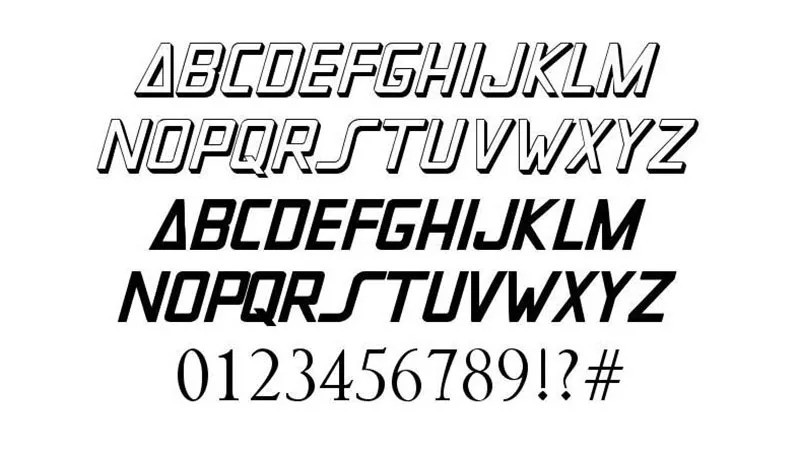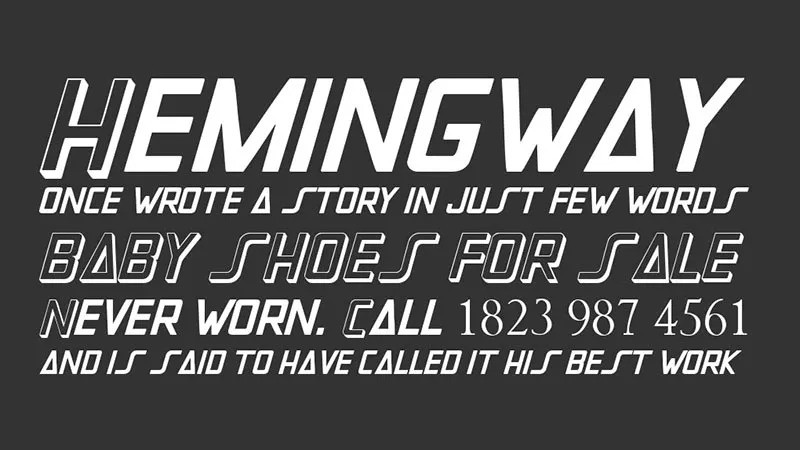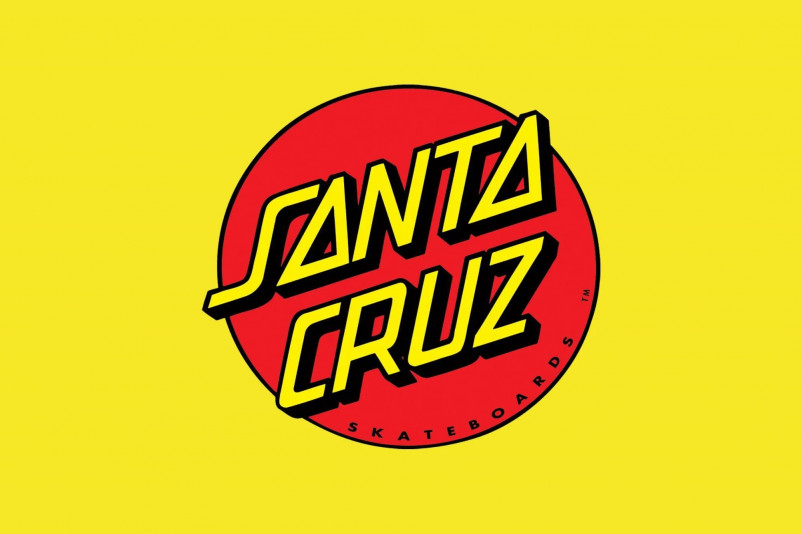
Santa Cruz Font Free
Santa Cruz Font is a logo font that has a stylish texture. It totally based on the Santa Cruz logo which a skateboard brand released in 1973. This brand has owned by NHS, Inc. That’s why Santa Cruz skateboard is very popular. They have been used by several skaters and several wishes to use them.
So, in the same way, many designers want to work along with its logo font which also very attractive. That’s why here I wanna bestowing this to you. The font family use for its logo is very similar to Santa Carla Font. It is a techno font family that has created by Mr. Kirk Shelton.
Santa Carla Font has come with two weights including regular and black. Both of these weights have 210 characters with 1024 units perm. Each and every character has created with the proper expertise, just to make this typeface friendly and elegant. So, that’s why it’s really awesome when someone applied them to designs.